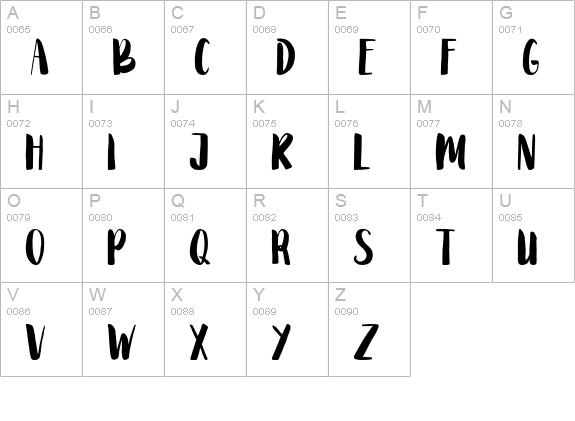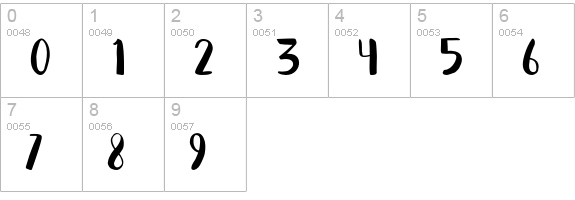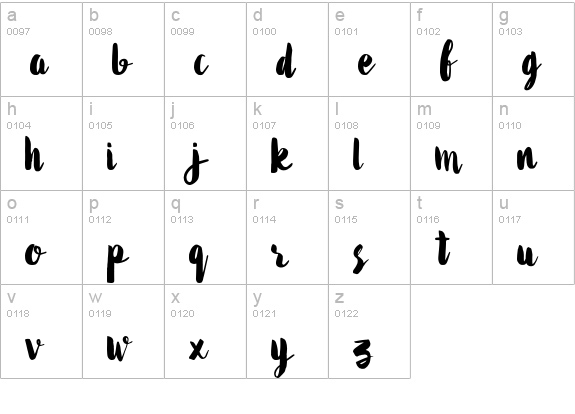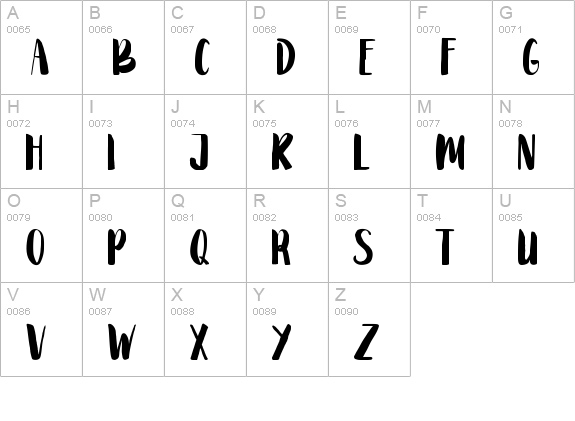
Stay Bold Font Details
Stay Bold is a strong, high-contrast variant in the Stay typeface family \xE2\x80\x94 well suited to headlines, attention-grabbing titles, and strong calls-to-action.
Introducing Stay Bold font, a dynamic and eye-catching typeface that exudes confidence and strength. With its bold and striking design, Stay Bold is the perfect choice for making a bold statement in your designs. Whether you're creating posters, logos, or social media graphics, this font will command attention and leave a lasting impression. And the best part? Stay Bold font is completely free! You can easily download it at FontsMarket.com and start using it in your projects right away. Don't miss out on this amazing opportunity to add a touch of boldness to your designs with Stay Bold font.